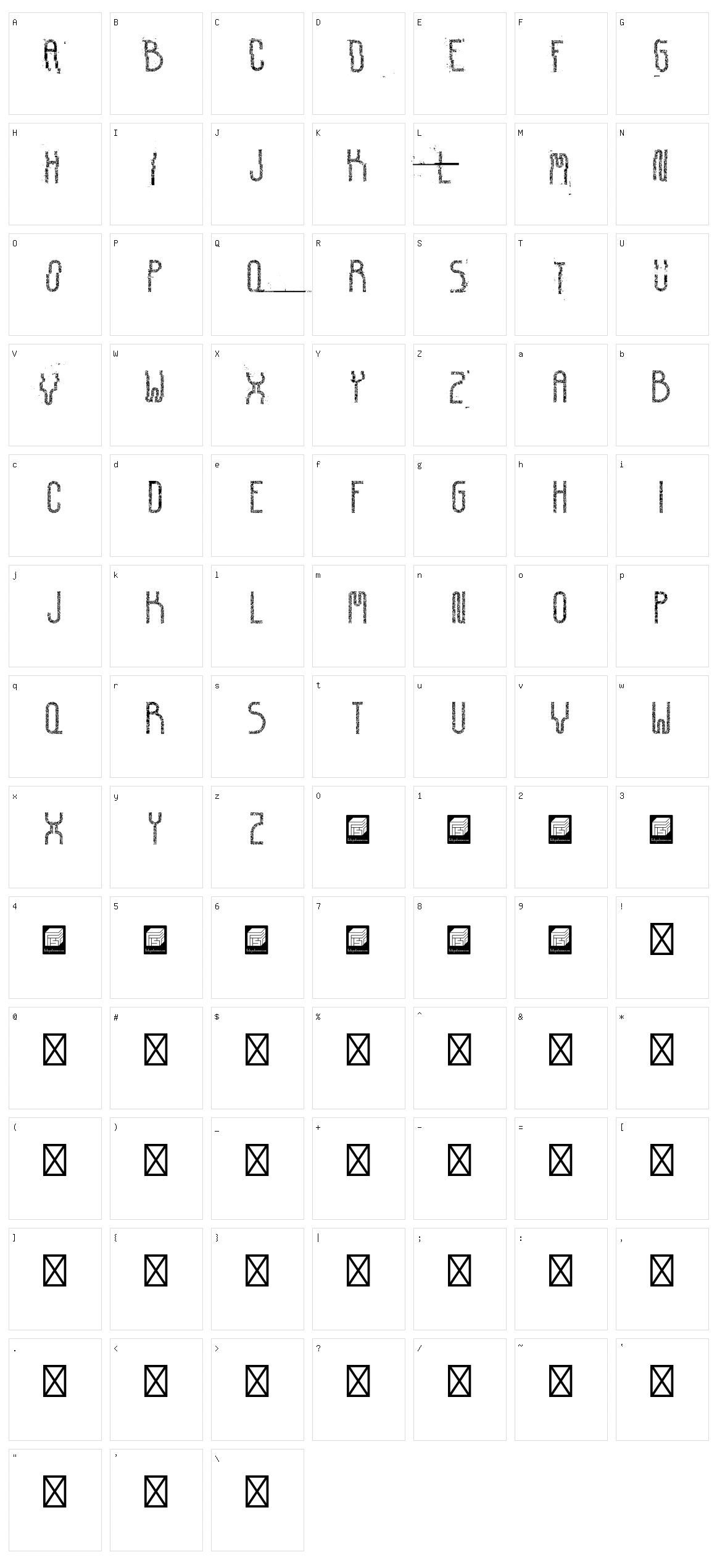
The free font Corrupted Democrazy is carefully designed by Pisto Casero, showcasing a thoughtful balance of creativity and usability and falls under the Distorted font style. When you download the ZIP file, it contains only 792.56 KB of font files, making it lightweight and quick to download. Please review the license details below to understand permitted usage and distribution rights. If license information is not available, we recommend using this font for personal projects only or contacting the author directly for commercial usage permissions.